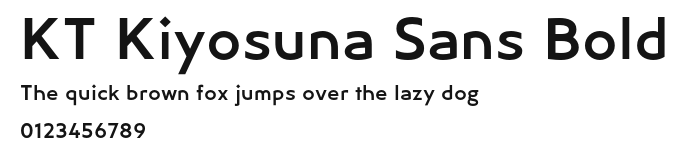
• Description: このフォントはYoshimichi Ohira氏によるZen Kaku Gothic (https://github.com/googlefonts/zen-kakugothic)の派生書体です。このフォントの漢字(CJK統合漢字)データはZen Kaku Gothicからお借りしたものです。この場を借りて深くお礼申し上げます。
About KT Kiyosuna Sans Bold.otf
KT Kiyosuna Sans Bold.otf is a modern, elegant sans-serif font designed for ultimate readability and visual harmony. Perfect for branding, headlines, web design, and print materials.